Ubiquity and variety
After the theoretical and historical considerations of the first part, I would like to take a brief look at the vernacular aspect of this ubiquitous typographic genre.
The world is full of beautiful examples of Tuscans, almost always with local nuances. So let us continue with a brief tour of some of the corners of the world that offer very special Tuscan letterforms, I think, to let us be carried away by their spontaneous frankness.
Paris: casual elegance
In general, street signs can be of two types, hand-drawn or typographic, almost always based on catalogue fonts. In Paris, there is a proliferation of hand-drawn Tuscans, sometimes executed in a haphazard manner.
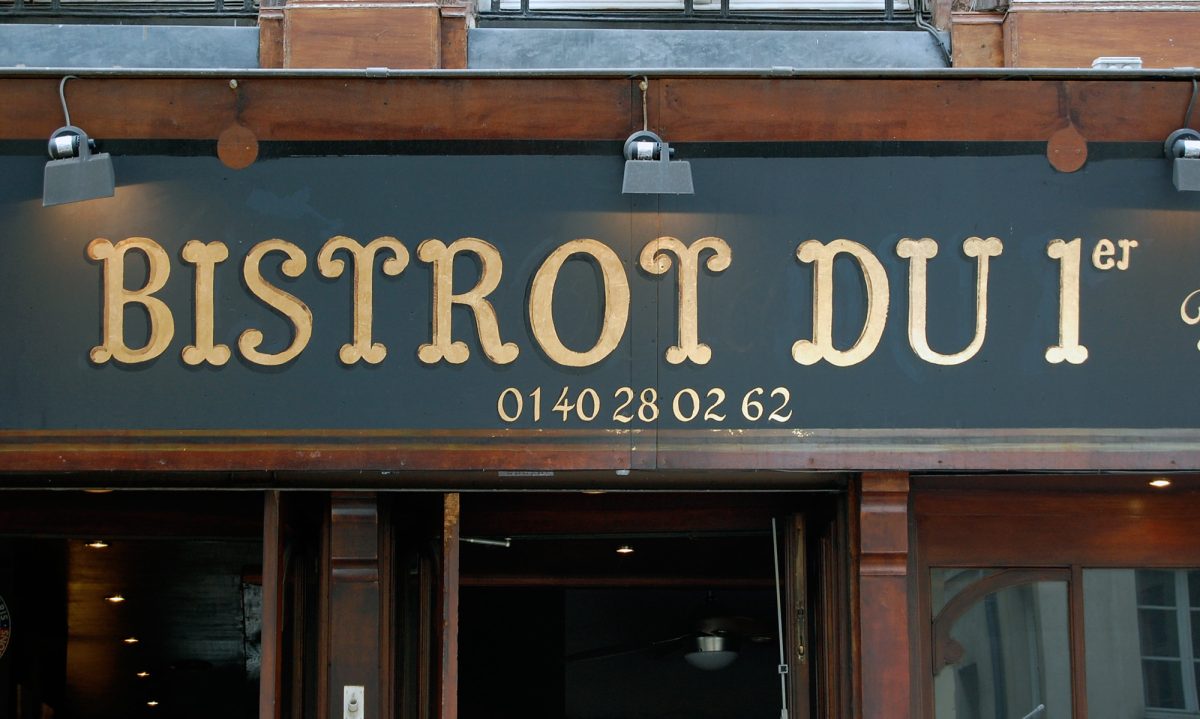
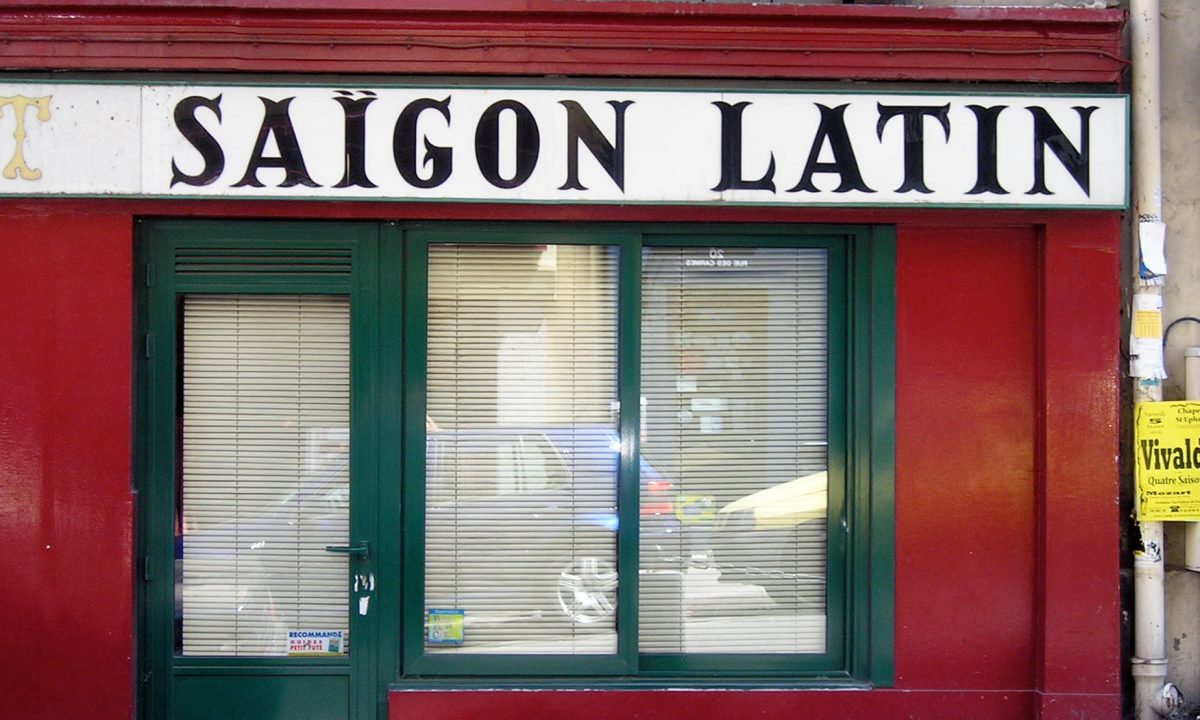
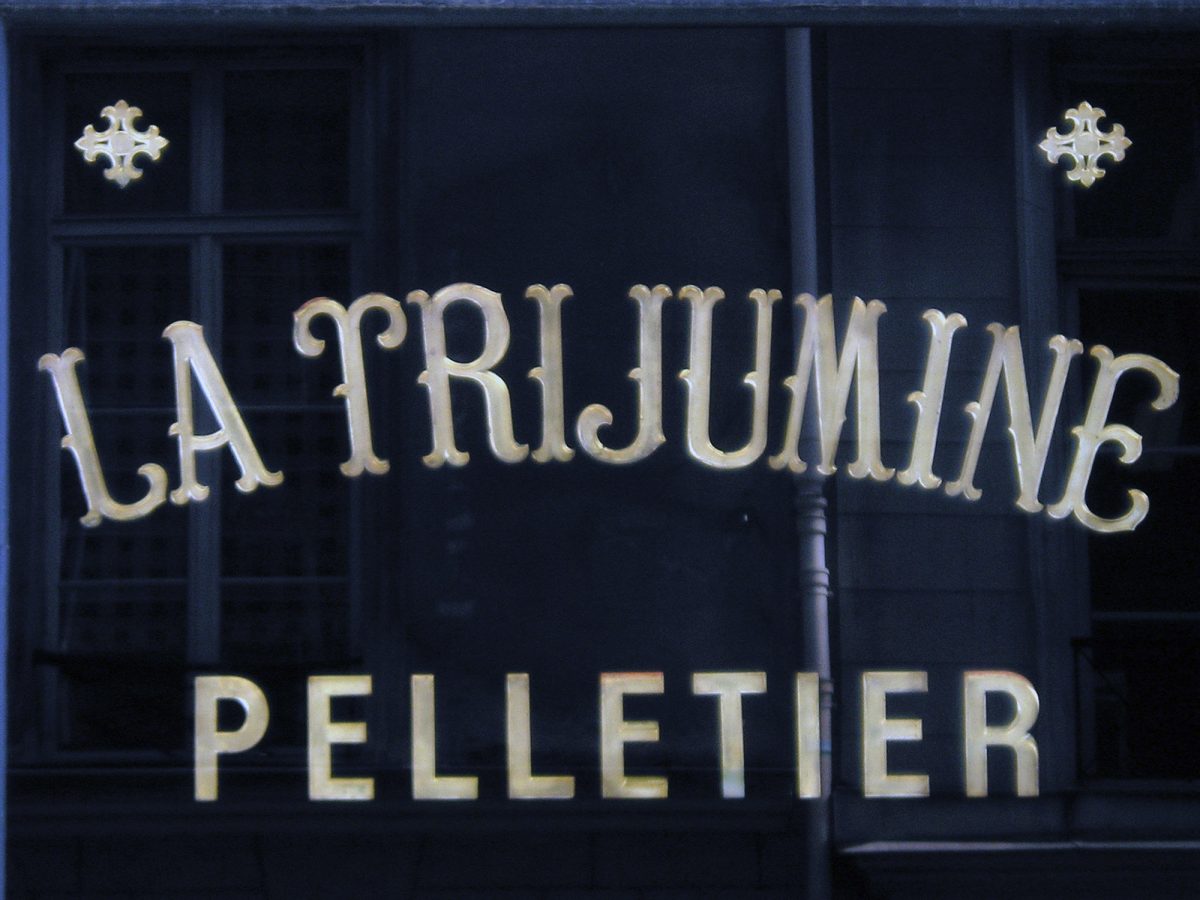
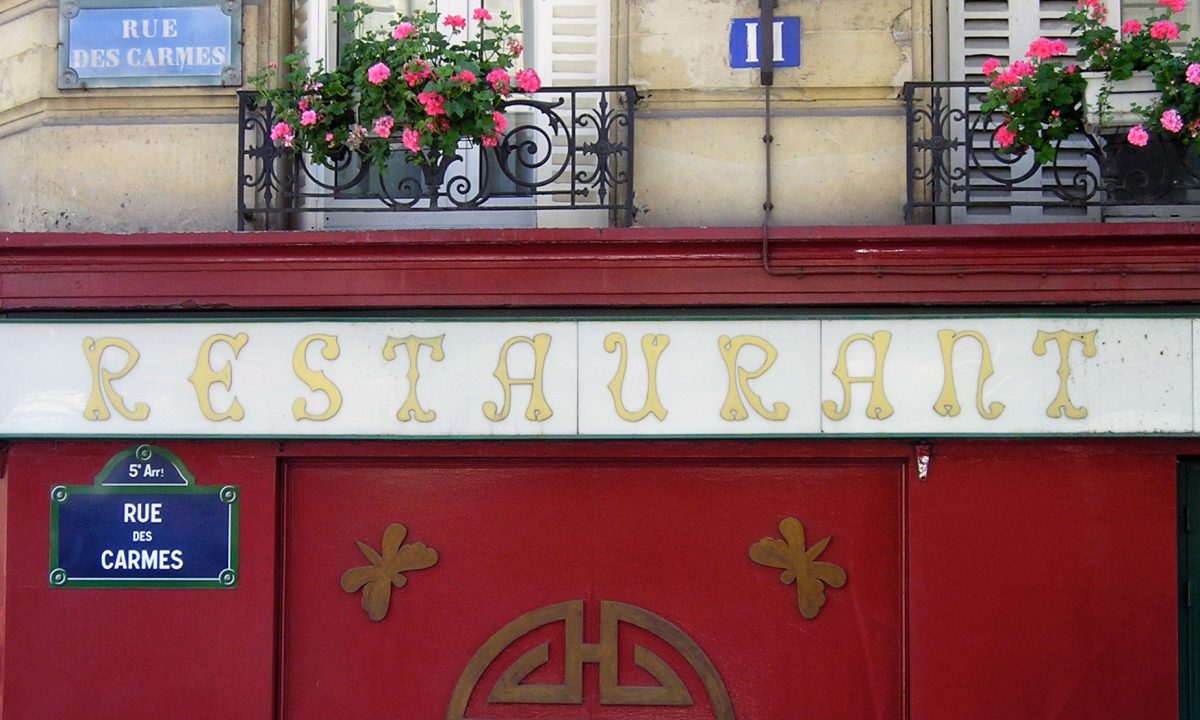
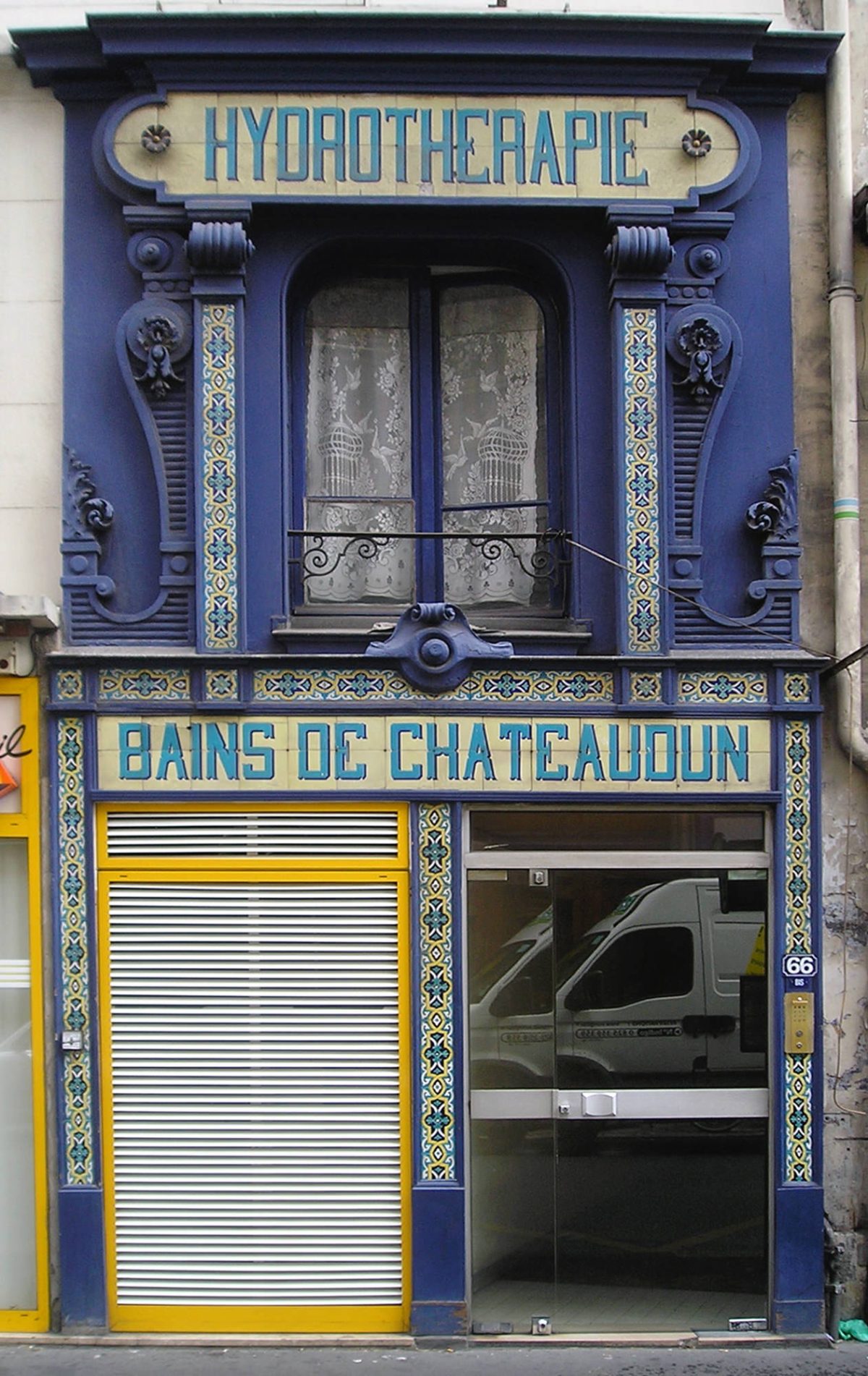
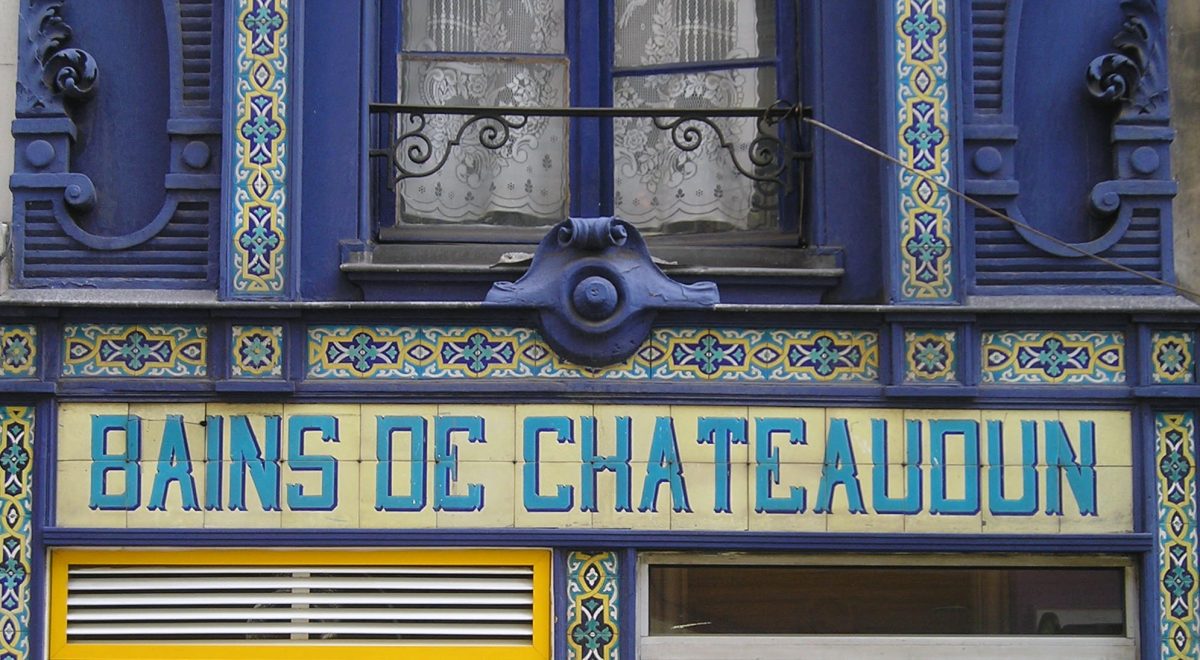
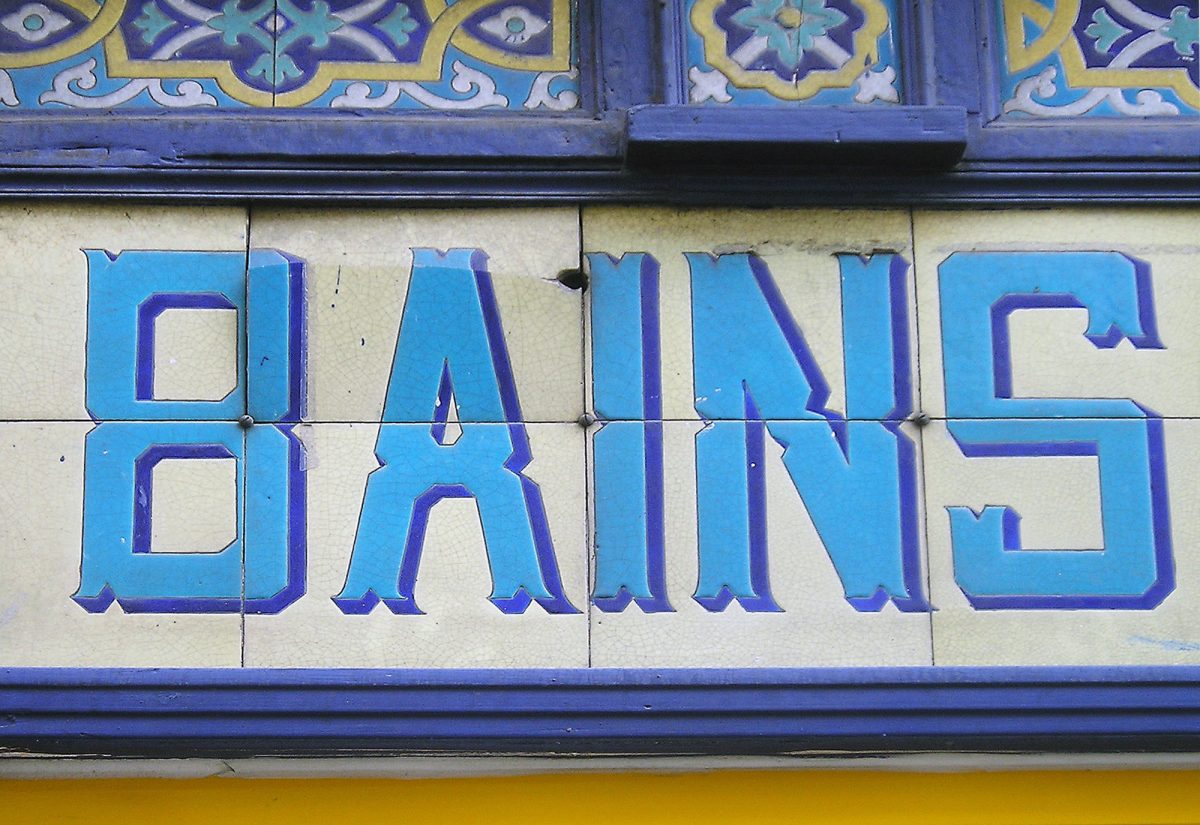
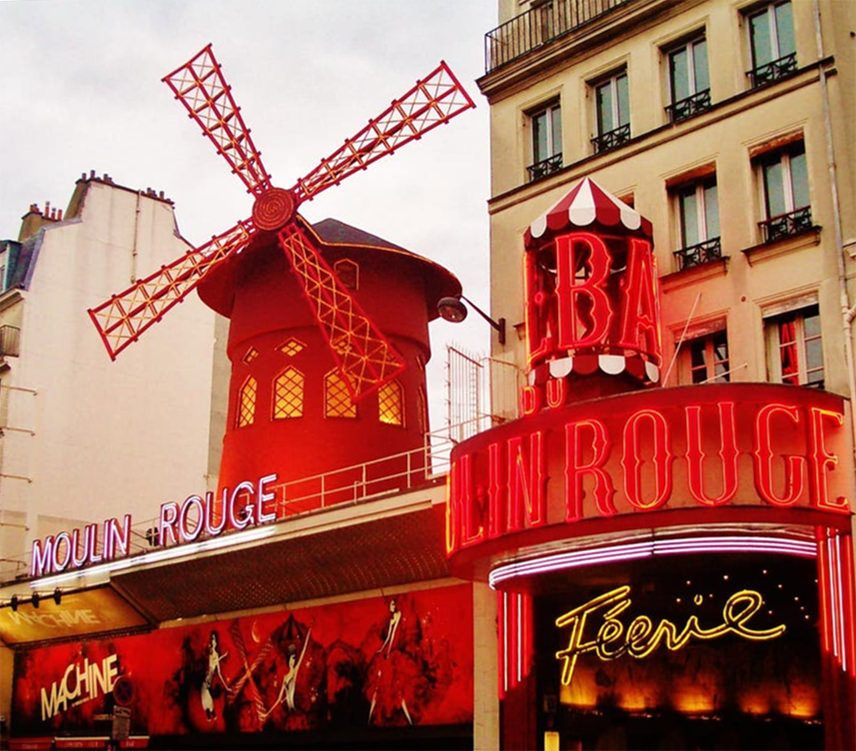
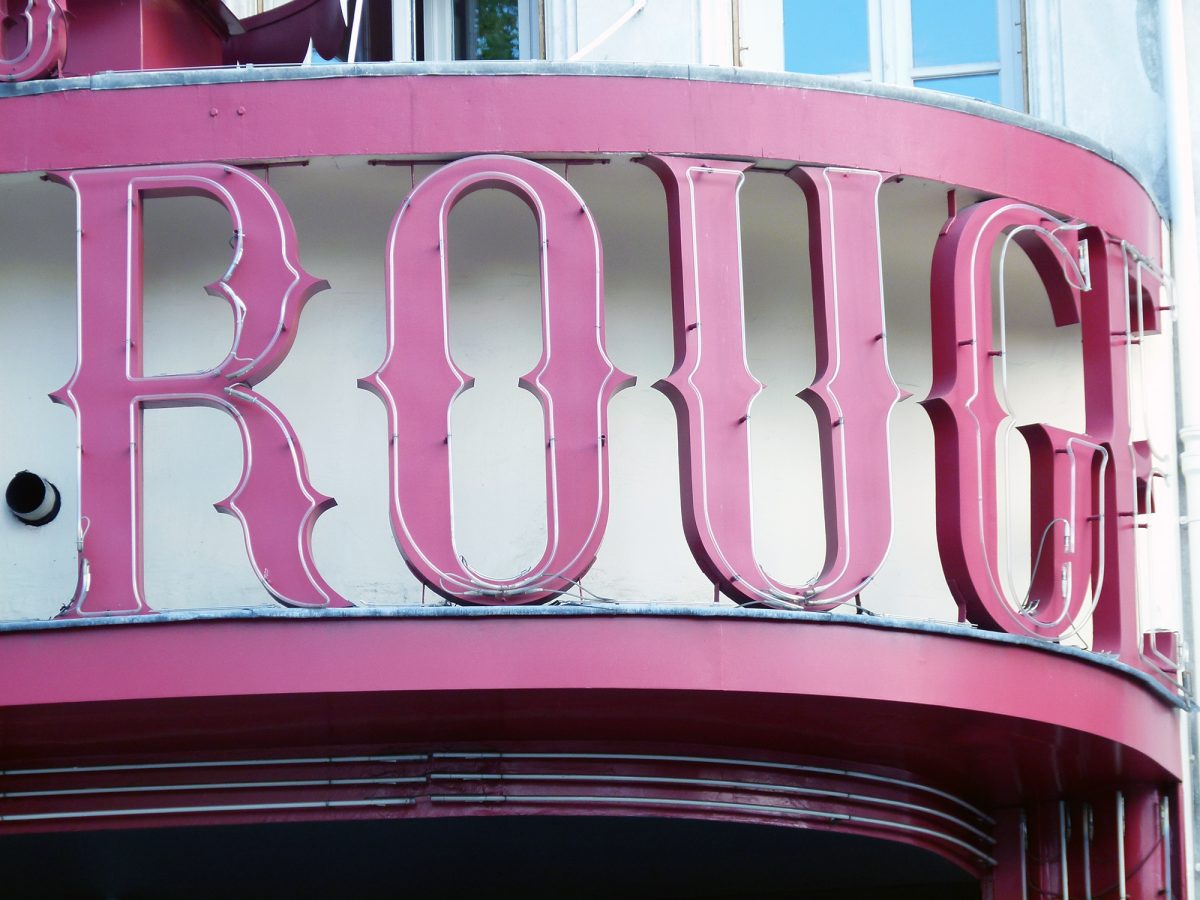
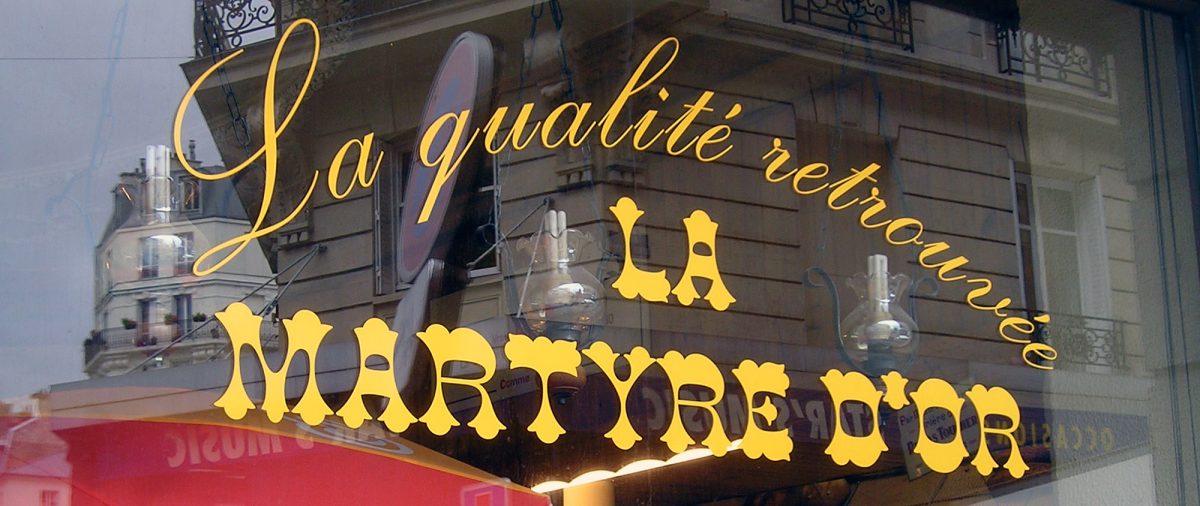
Mexico’s magic towns and letters
Latin America as a whole and Mexico in particular are always an infinite source of vernacular letterforms, both local interpretations of European traditions as well as local vintages. Here are some examples of interesting Mexican Tuscans.
In a pioneering research on the use of Tuscan styles in Brazil in the 19th c., Priscila L. Farias & Edna Cunha Lima conclude: 2 “The impact of the branching serifs, divided stems and voluminous shapes of the tuscan letters in South America graphic memory can be verified by the current presence of forms reminiscent of their anatomy in the repertoire of popular sign painters. Some examples of this are the traditional lettering styles still found in Colombian rural transport system known as chivas, in Brazilian Amazon boats, and in Argentinean filetado porteño, typical of Buenos Aires, reinforcing the notion of a transnational, shared taste.”
‘Fileteado’ in La Boca, Buenos Aires
Caminito, the famous tourist promenade in the La Boca neighborhood, south of the city of Buenos Aires, adopted what is called fileteado porteño, a technique that exists in other popular cultures but here with very own characteristics. There is also a series of historical signs in the mosaic technique, of great subtlety, to recall significant figures of the culture.
Tuscans from the Amazon
The São Paulo designer Fernanda Martins conducted significant field research into the work of boat letterers in the Amazon region, which included the production in 2014 of an excellent video record called “Floating Letters”. In both the photographic survey and the video, the preponderance of a singular ornamental style is evident: three-dimensional letters, most of the time subdivided in two halves using various colours and always with Tuscan serifs. Martins carried out her research in several towns in the area, observing the particular work of each sign-maker. It is disturbing to note the coincidence in stylistic preference when it comes to painting the names of the boats, all in this three-dimensional Tuscan style.
What would we do without decorative lettering? It is clear that the Tuscan letters occupy a very special place among the expressive typographic possibilities. And whether handmade lettering or digital type, whether near or far from the deceased, they are more alive than ever.